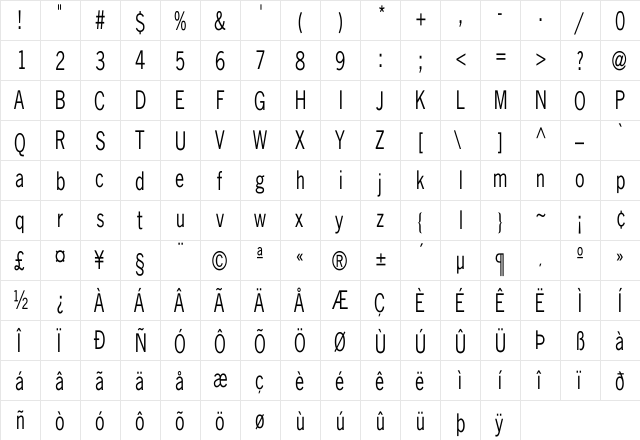
NewsGothic Cn Regular
Design Context for NewsGothic Cn Typeface
NewsGothic Cn takes a clean, functional approach — its unadorned letterforms prioritise legibility and work reliably across screen and print environments.
Font Pairing: Works well alongside a characterful serif or display font that can carry the expressive load while NewsGothic Cn handles the functional copy.
Pro Tip: Pair NewsGothic Cn with a display or serif font for headlines — its neutral character makes it an excellent supporting player in complex typographic systems.